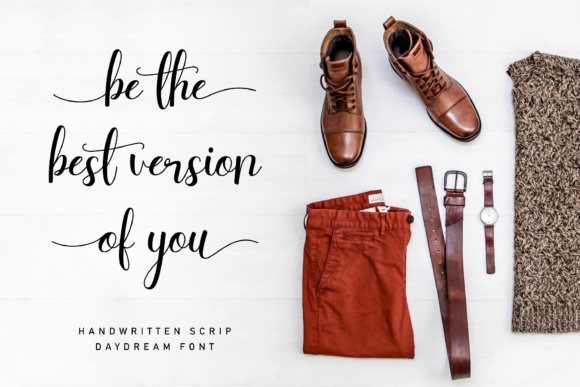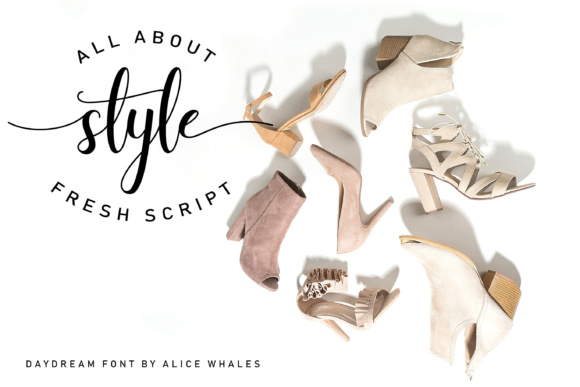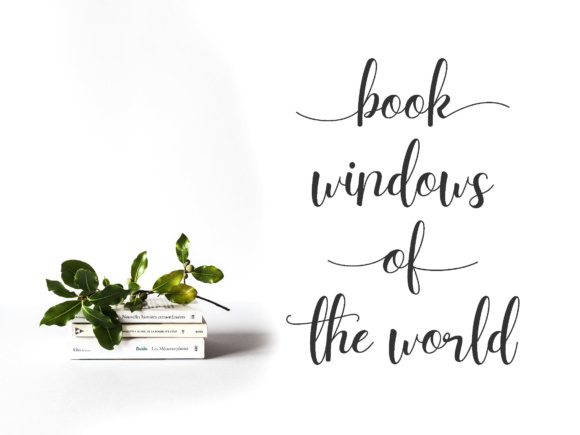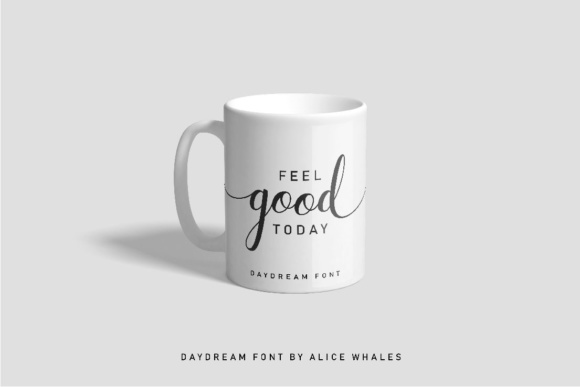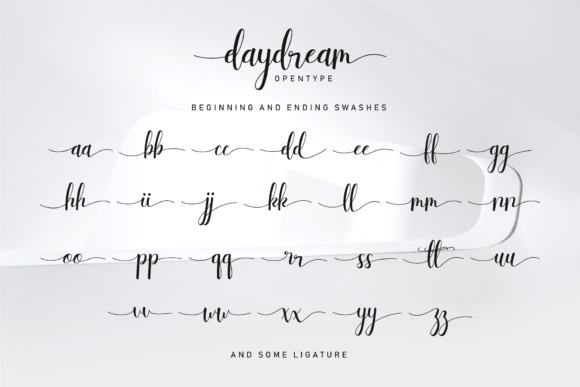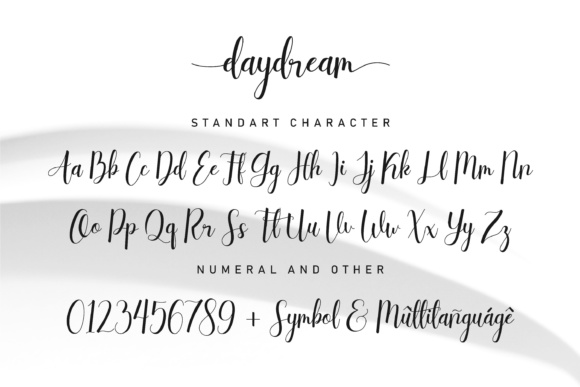
Daydream Font
About Daydream Font
Daydream is a beautiful and refreshing calligraphy font, perfect for use in a wide range of projects! This font combines well with other font styles, and looks great on branded projects and print designs.